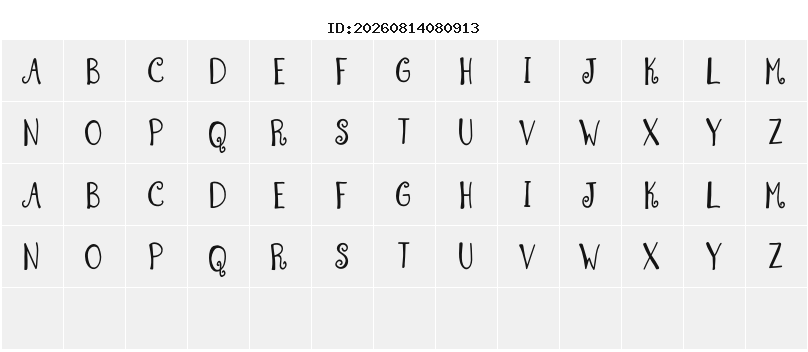
• Font Name: Summer Swirl Demo
• Designer: Paige Lyon
• Manufacturer: Millie Mae & Co
About Summer Swirl Demo.otf
Summer Swirl Demo.otf is a modern, elegant sans-serif font designed for ultimate readability and visual harmony. Perfect for branding, headlines, web design, and print materials.